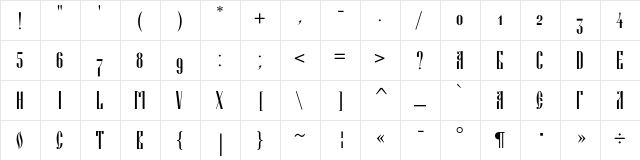
BlagovestThreeC Regular Font Preview
BlagovestThreeC Regular
Design Context for BlagovestThreeC Typeface
BlagovestThreeC takes a measured approach to typography — its balanced proportions and neutral character make it a reliable workhorse for both digital and print work.